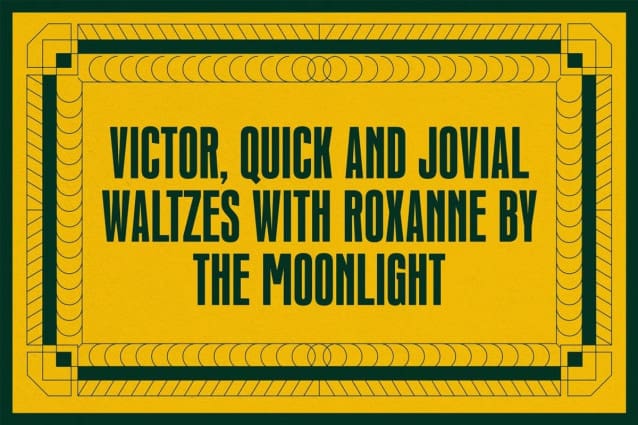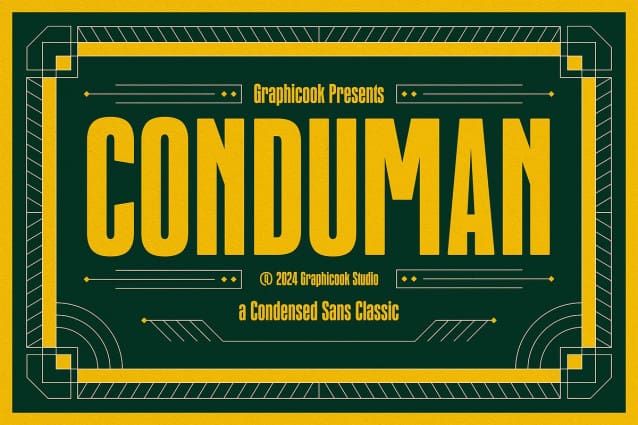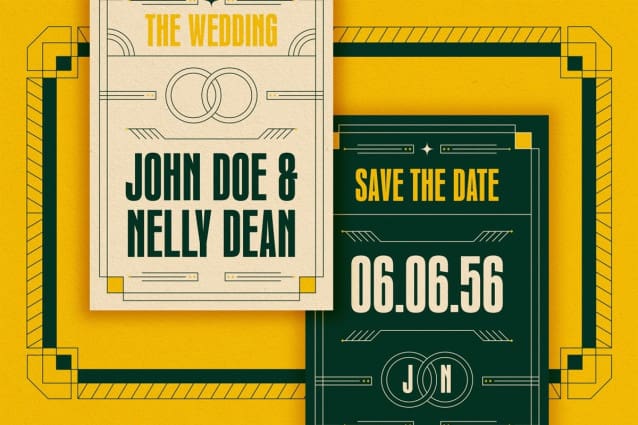
Conduman Font
Conduman Font draws inspiration from the Art Deco style, blending classic elegance with a modern touch. Perfect for posters, editorial work, packaging, and more.
Conduman is perfect for headlines, logotypes, magazines, packaging, quotes, movies, games, cover albums, book covers, and flyers, it’s a perfect solution for creating eye-catching designs that stand out in any context.